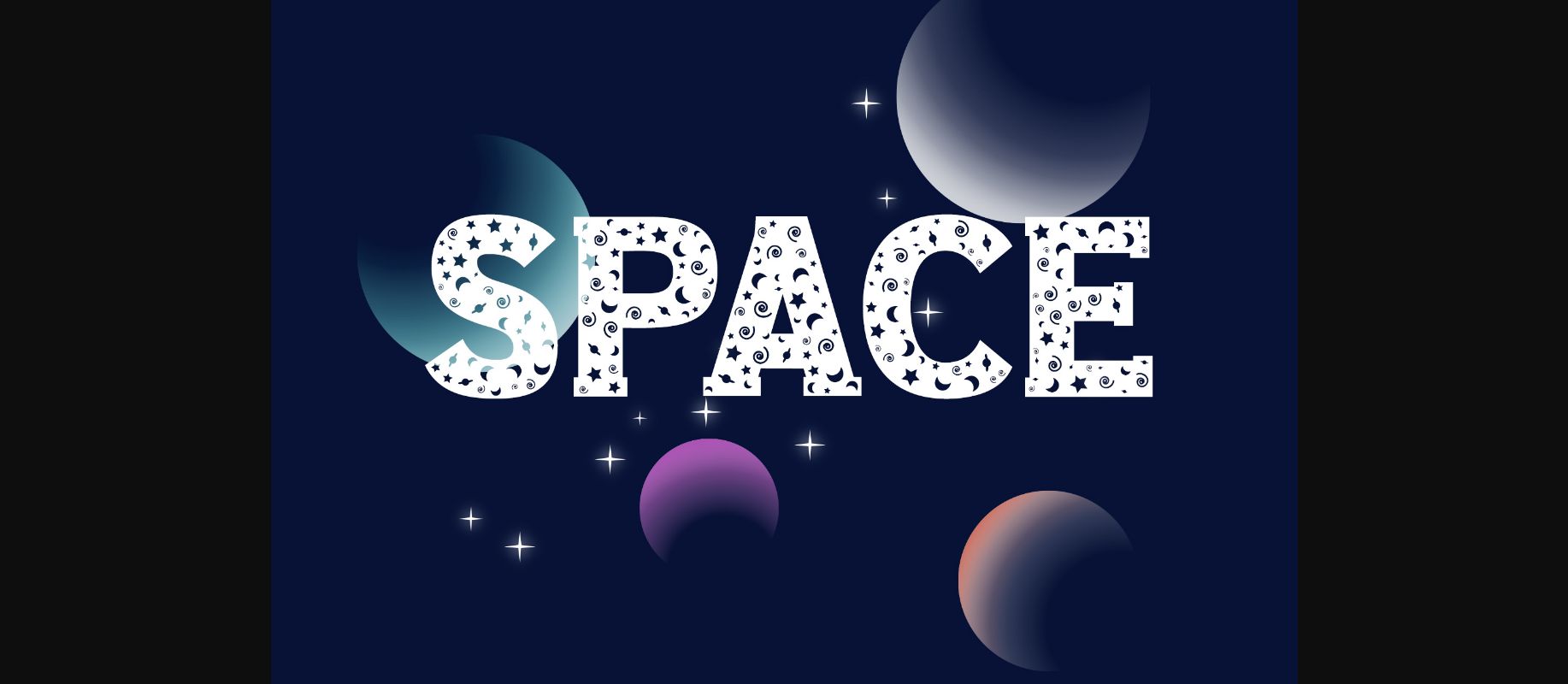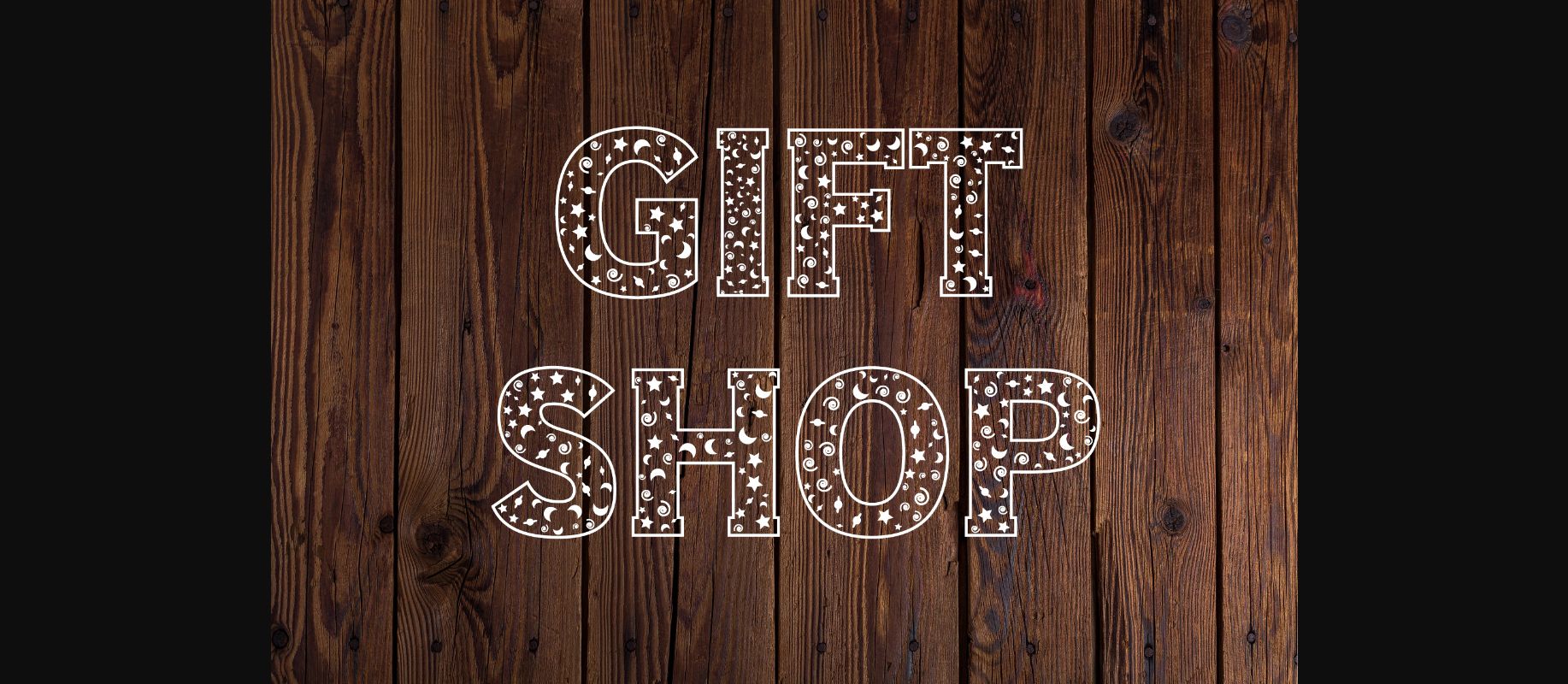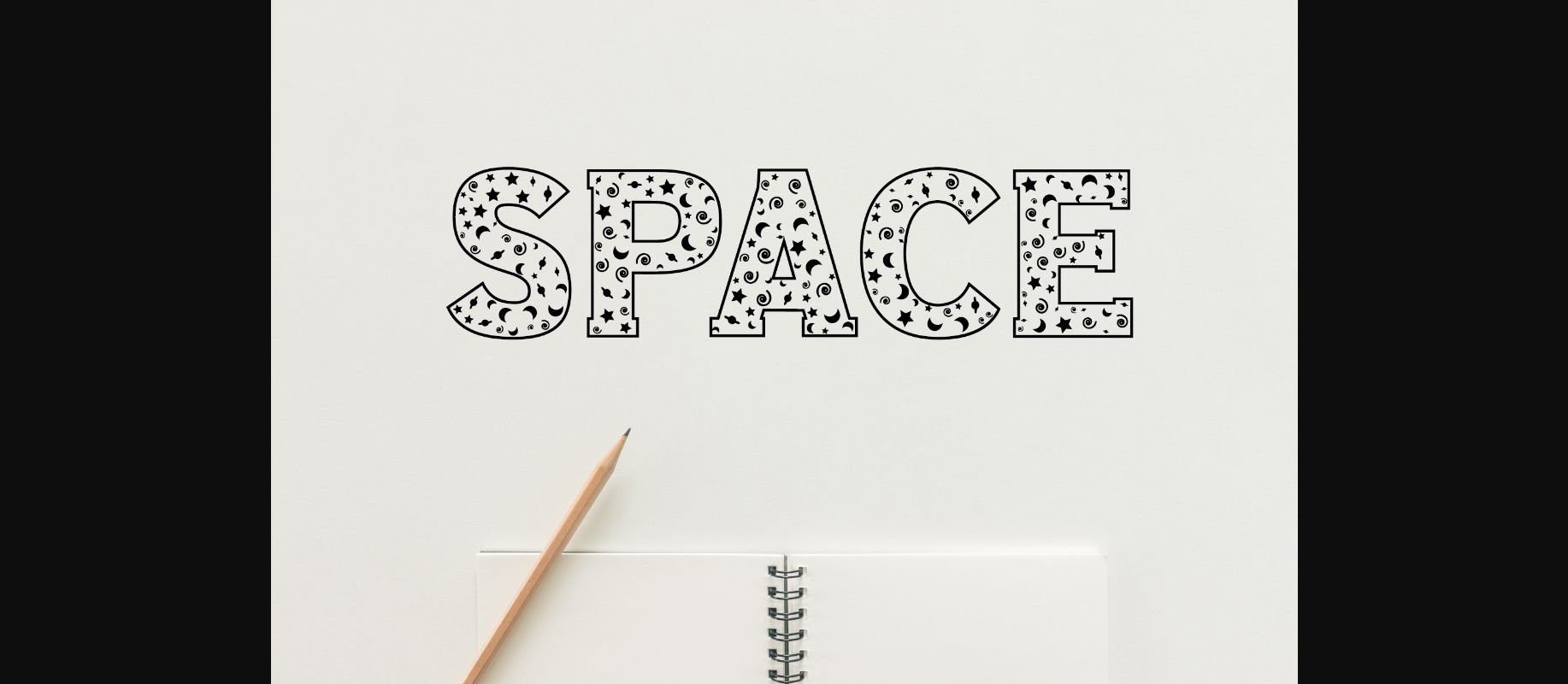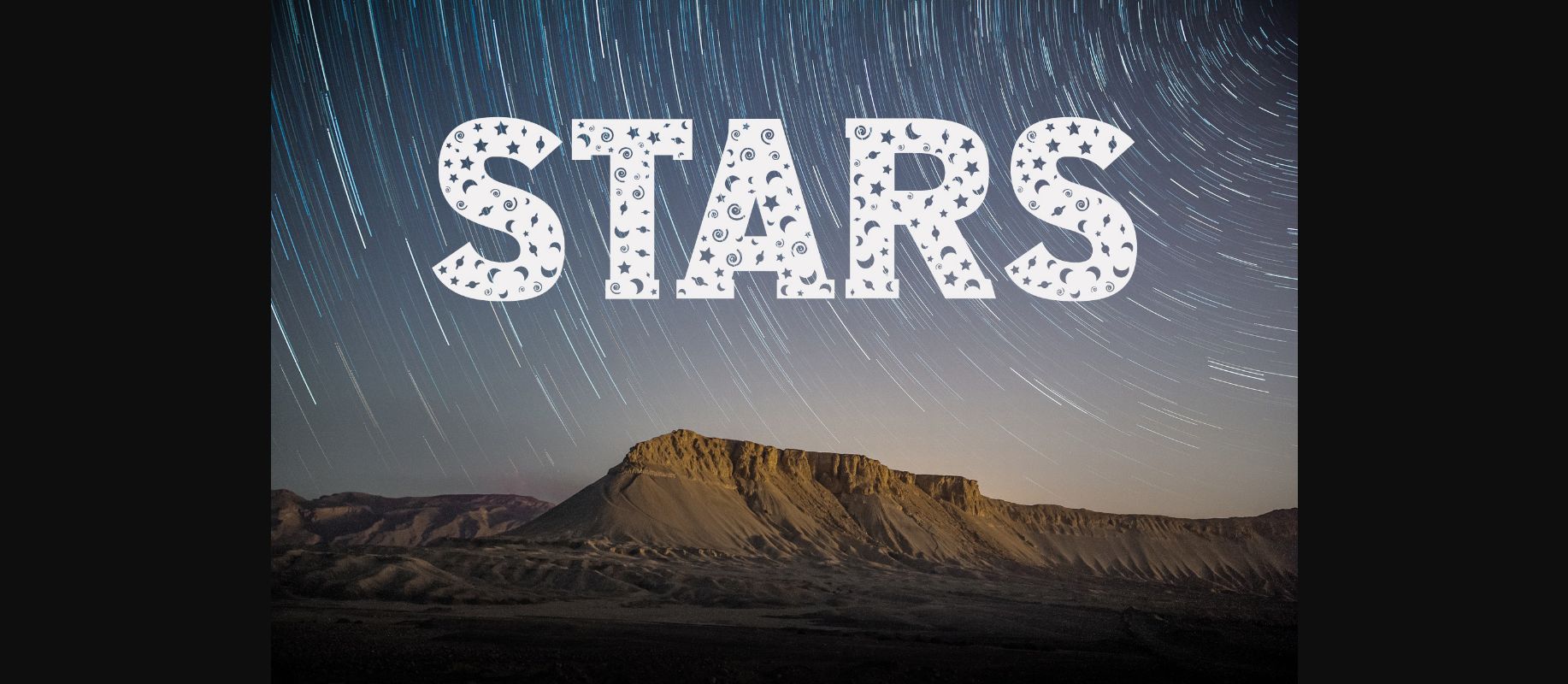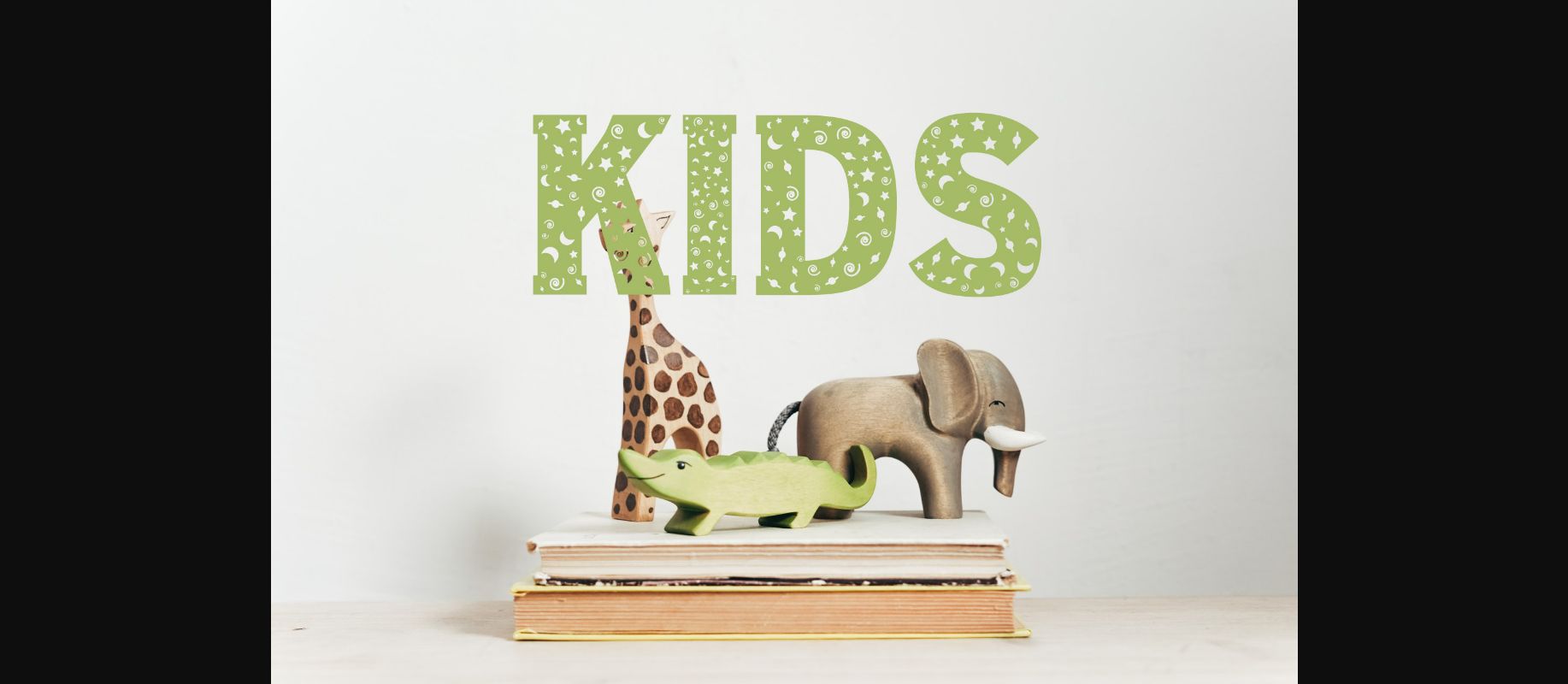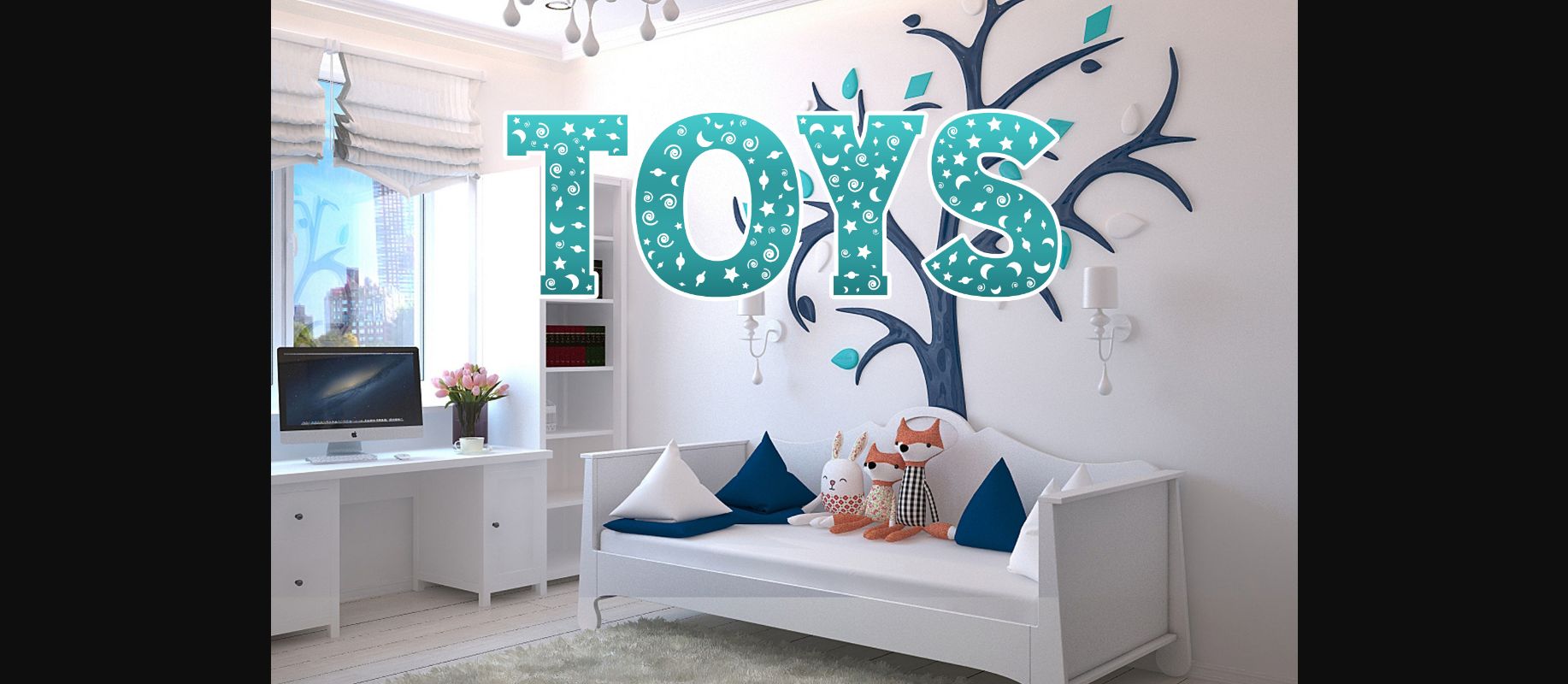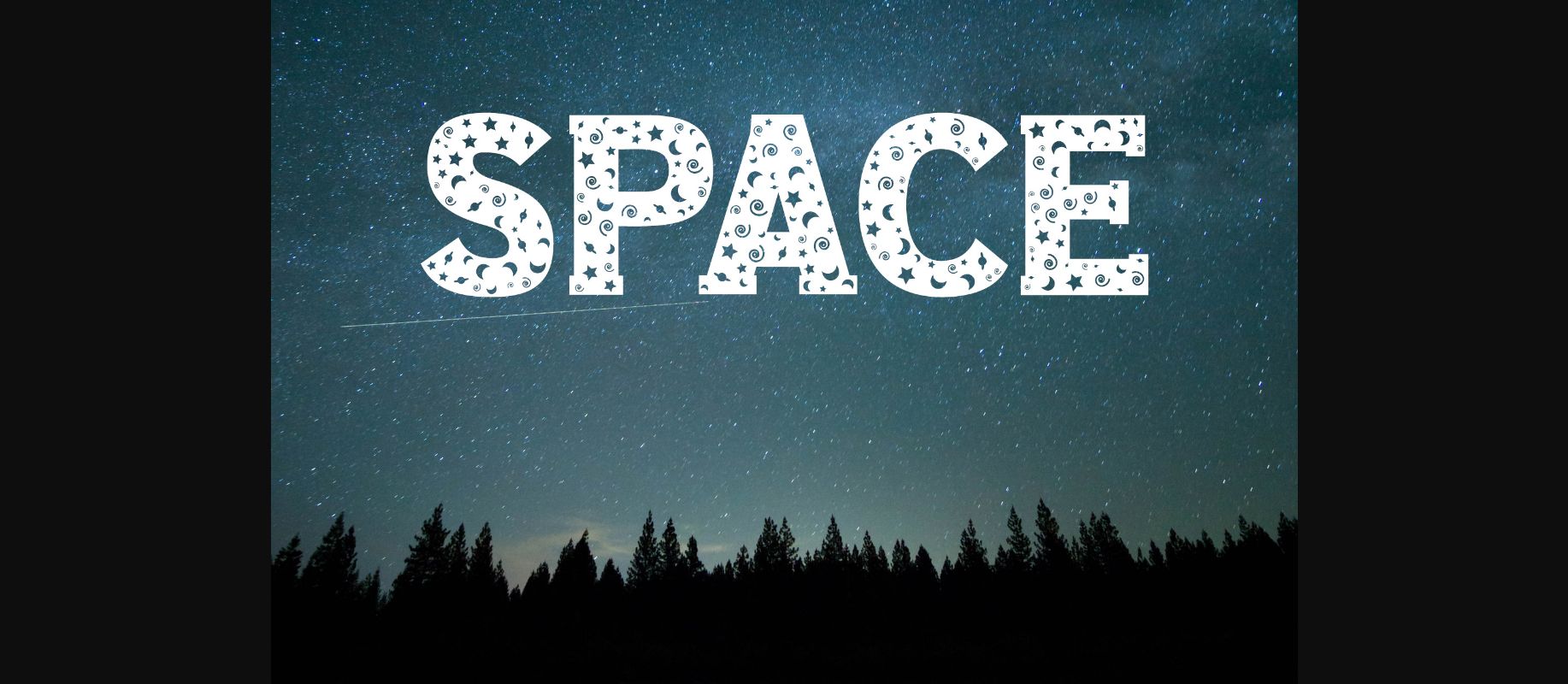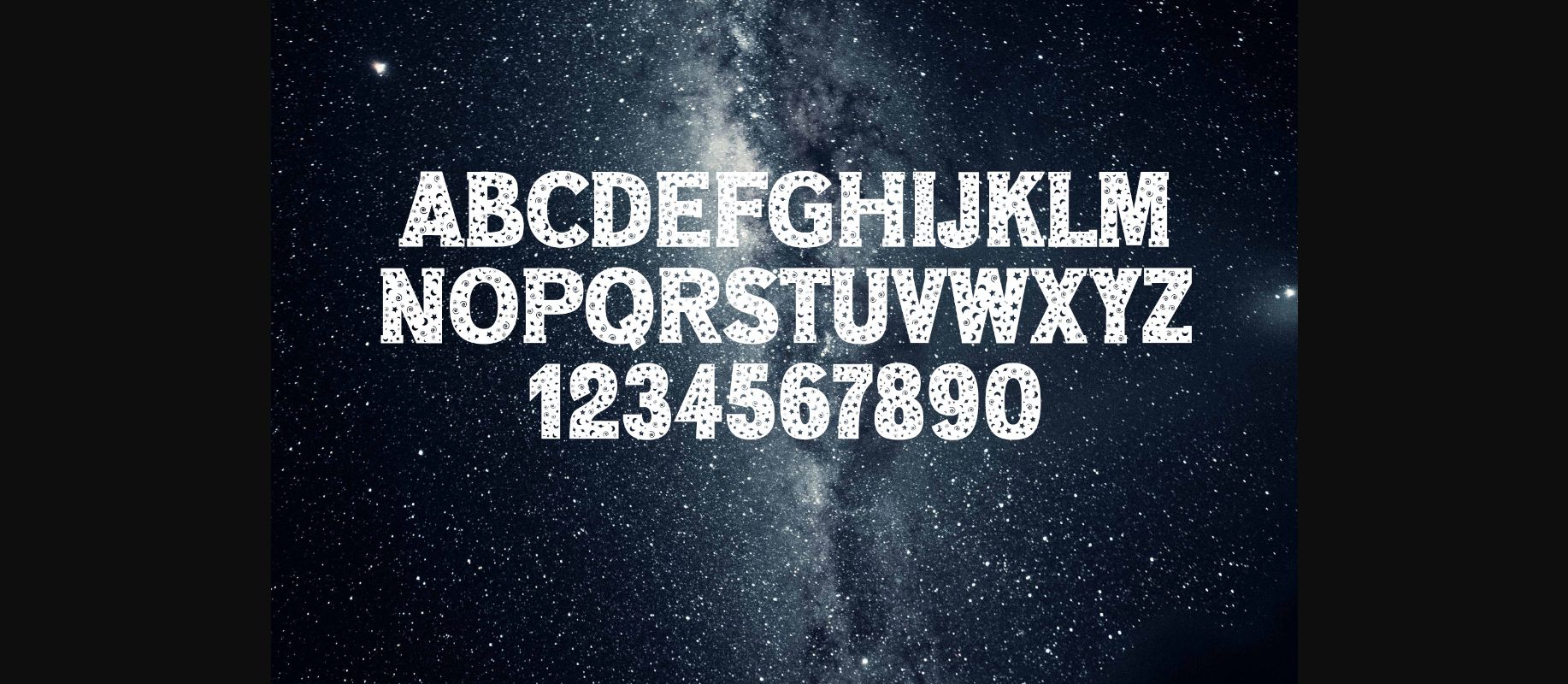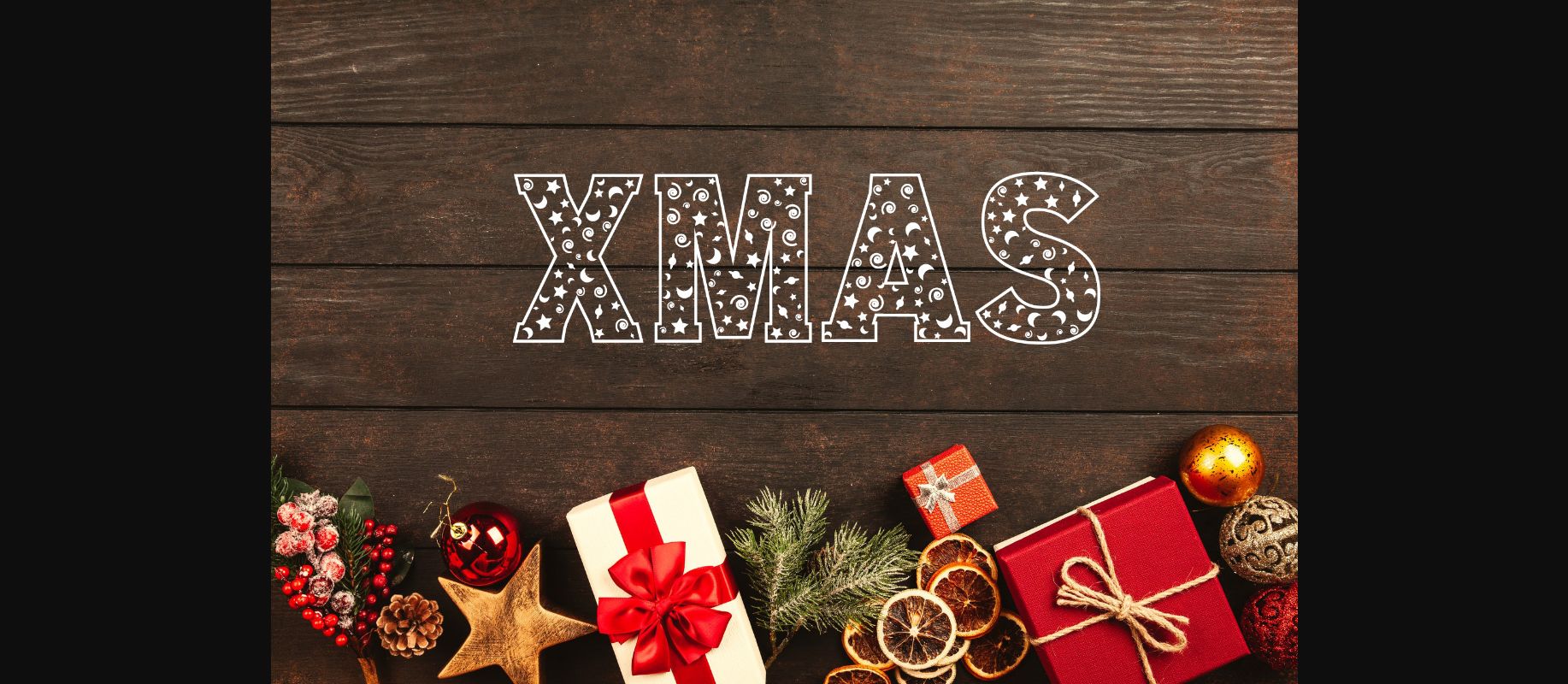
About Space Font
Space is an incredibly unique and interesting decorative font with a space theme. Its bold and chunky letters make this font adept to a wide variety of designs. Space will turn any creative idea into a true standout!